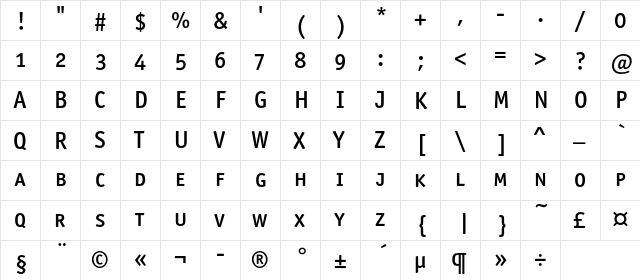
OfficinaSansMediumSCC Regular
Design Context for OfficinaSansMediumSCC Typeface
OfficinaSansMediumSCC is a composed and adaptable typeface that performs quietly and consistently across a wide range of design contexts.